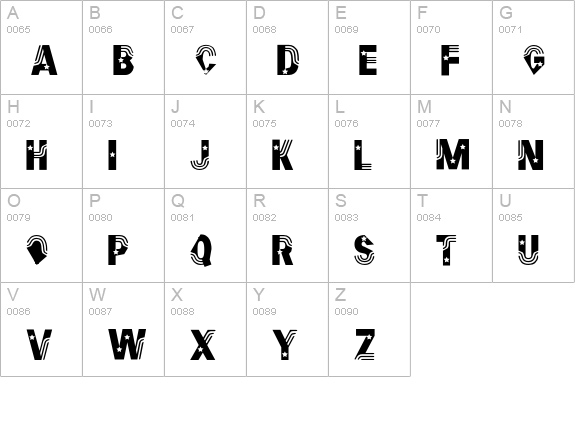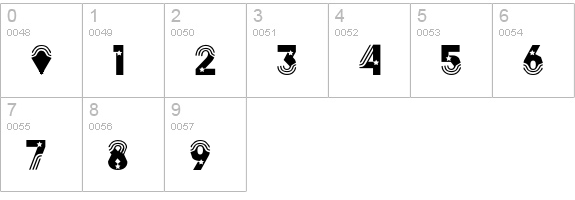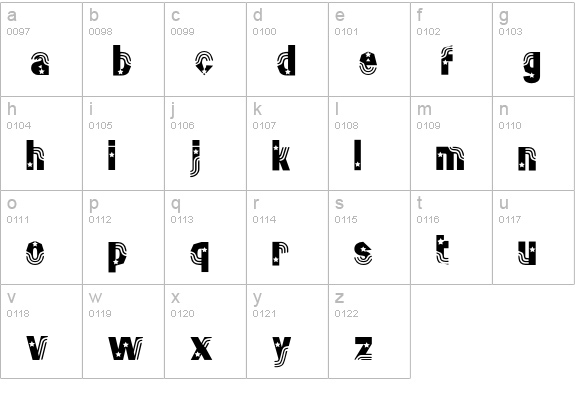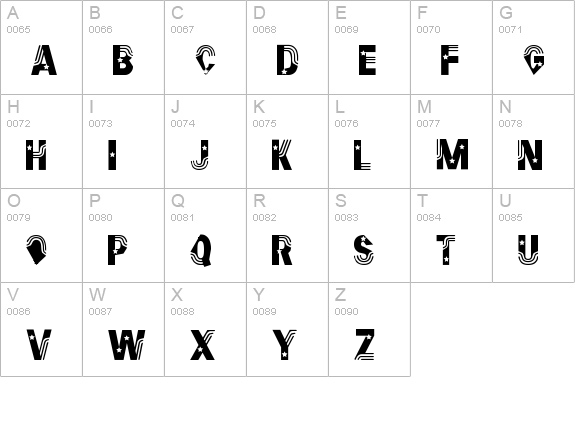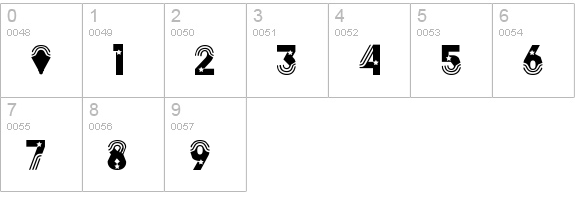
Stylistic Font Details
Introducing the stunning Stylistic font, a captivating typeface that effortlessly combines elegance and creativity. With its unique design and intricate details, this font is perfect for adding a touch of sophistication to your projects. Whether you're working on branding, invitations, or editorial designs, Stylistic font will make a statement and leave a lasting impression. And the best part? Stylistic font is completely free to download at FontsMarket.com. Yes, you read that right - this gorgeous font is yours to use at no cost. So why wait? Elevate your designs with the exquisite beauty of Stylistic font today.